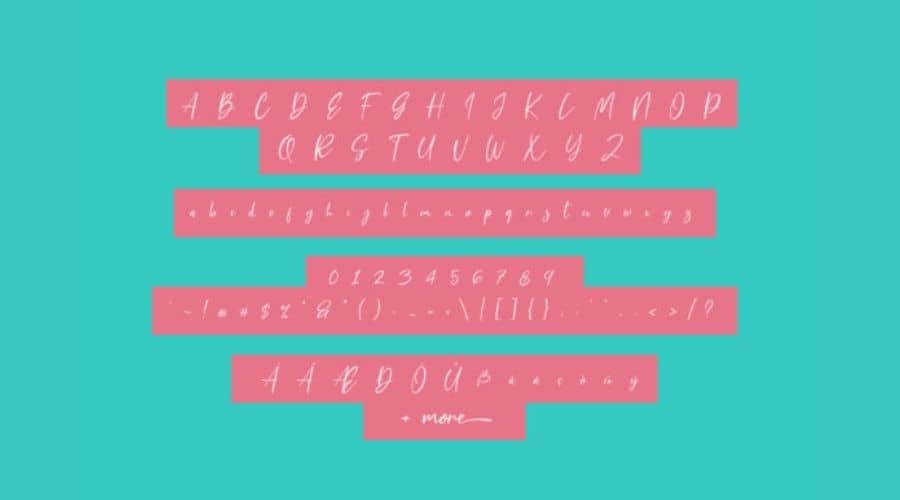
Tosca Pen Font
The Toscal Pen font is a handcrafted style font that is incredibly fresh and unique. Tosca Pen is ideal for logos, signatures, stationery, posters, clothes, branding, wedding invites, cards, taglines, and layout designs, among other things. This Font is great for vibrant and unusual projects since it is smooth and curved, angular and elegant.
NameTosca Pen Font
StyleScript, calligraphy.
DesignerSuzuran San